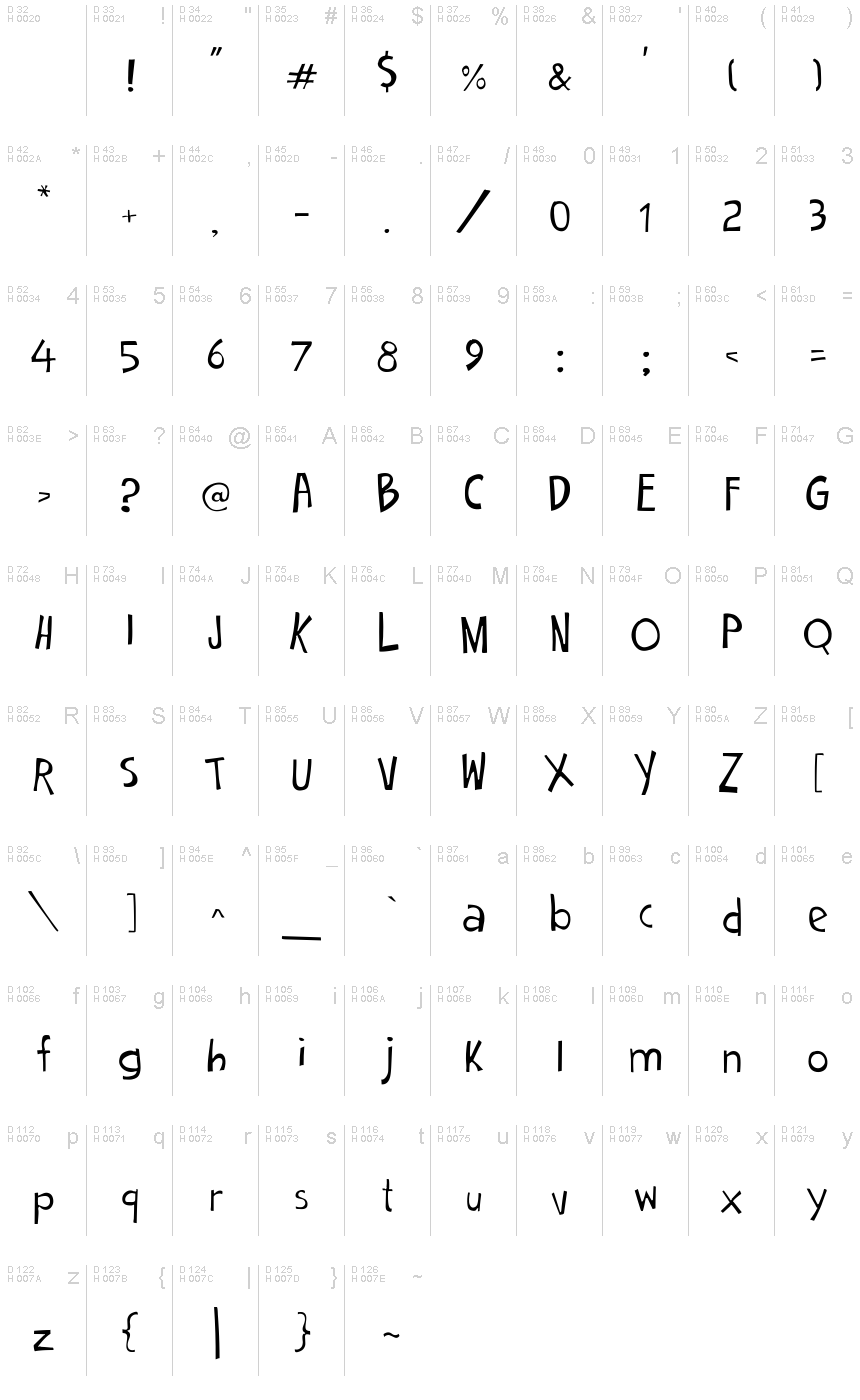
Cartoon 2 Package
Cartoon 2 Package, designed by Galdino Otten Fonts, is a whimsical display font brimming with playful charm. Its carefree style features rounded edges and an informal feel, capturing the lighthearted essence often found in children's literature and animated series. The font’s cheerful and imaginative appearance makes it a perfect fit for projects that require a fun and inviting atmosphere.
Ideal for comic books, playful logos, children's book covers, or eye-catching posters, Cartoon 2 Package will inject a dose of personality and joy into any design. Whether you're aiming to entertain young readers or add a touch of humor to your branding materials, this font's unique characteristics ensure your message stands out in the most delightful way possible.